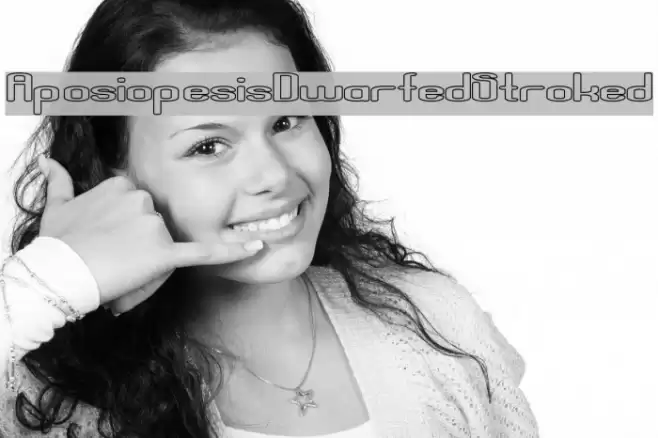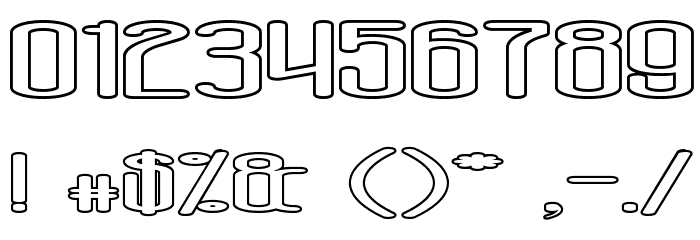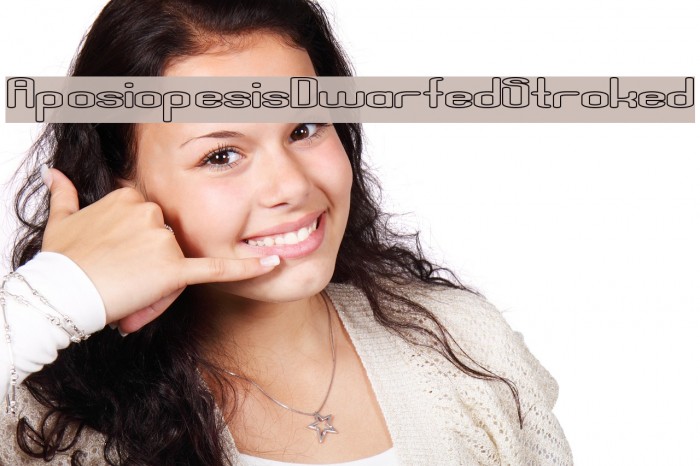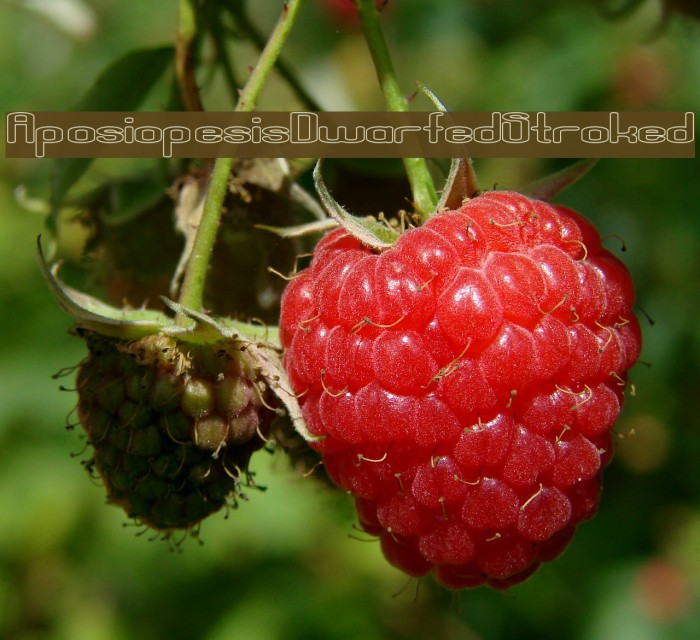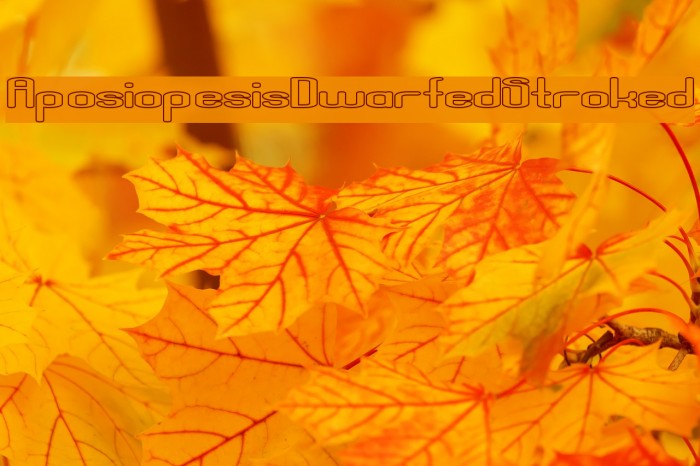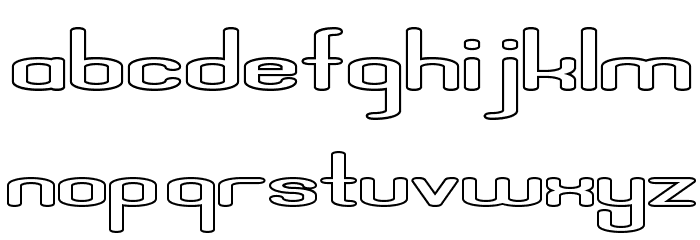
AposiopesisDwarfedStroked Font
AposiopesisDwarfedStroked Description
This font features a unique outline style with a modern and futuristic appearance. Each character is defined by a consistent stroke width, creating a hollow effect that emphasizes its geometric structure. The uppercase and lowercase letters maintain a uniform height, contributing to a clean and organized look. The numerals and special characters follow the same design principles, ensuring a cohesive visual identity across all elements. The font's open and airy design makes it suitable for projects that require a contemporary and innovative touch.
A modern, outline-style font with a geometric and futuristic design from Uncategorized fonts.
- Proposed Projects: Ideal for branding, posters, digital media, and any project seeking a modern and innovative aesthetic.